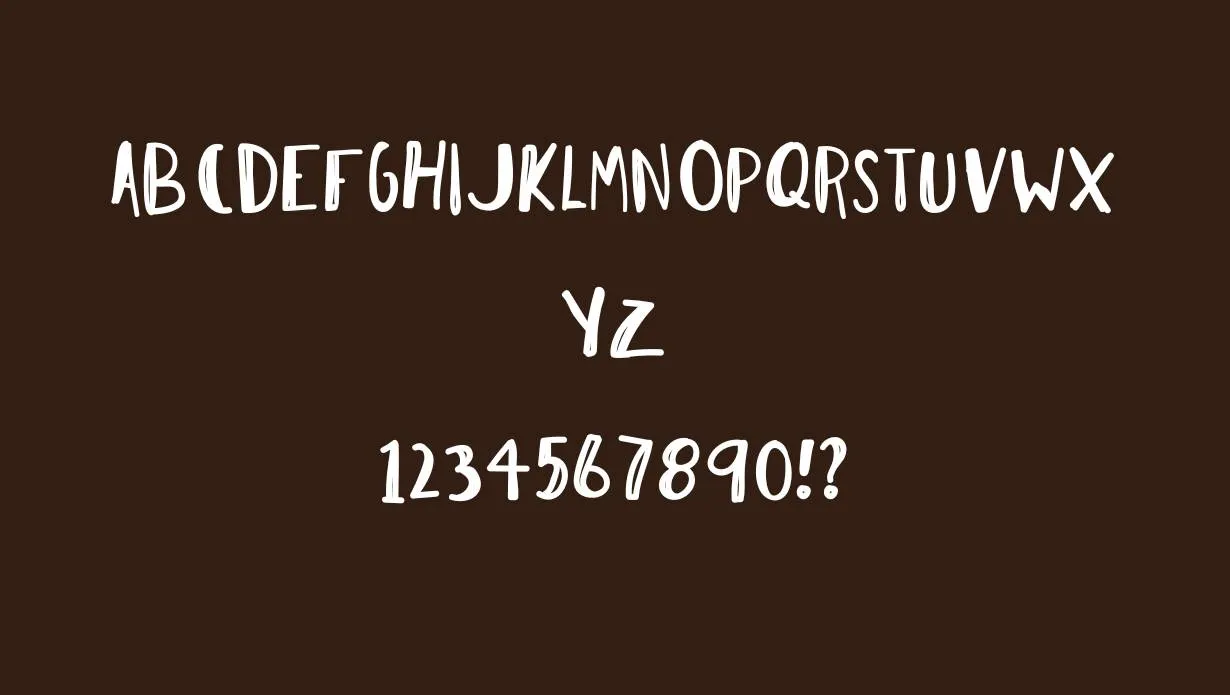
The “I Need Coffee” font is as relatable as its name implies. It embodies a casual, humorous, or relatable tone and is often used in memes, social media graphics, or any content expressing everyday sentiments.
Name I Need Coffee Font
Designer The Fresh Exchange
Style Brush